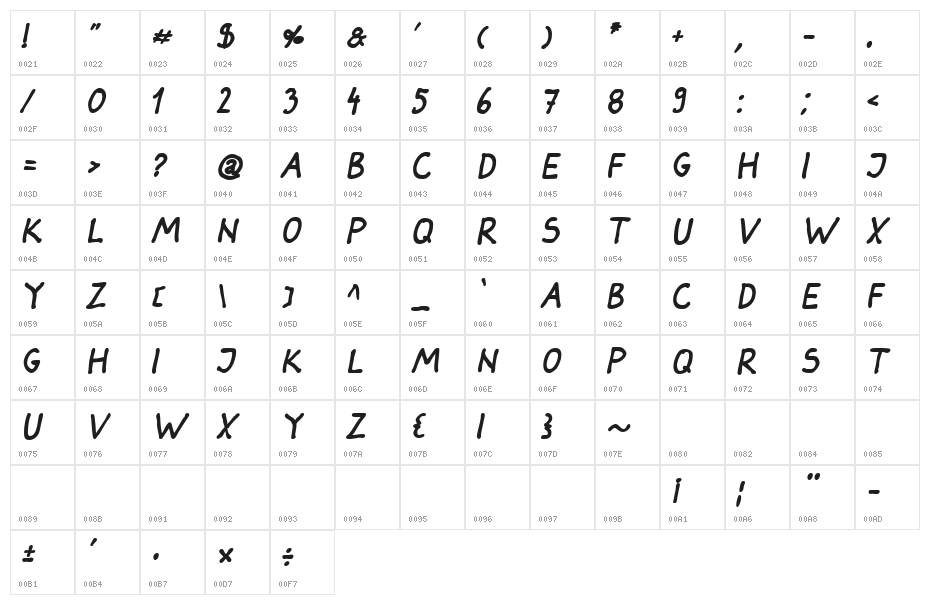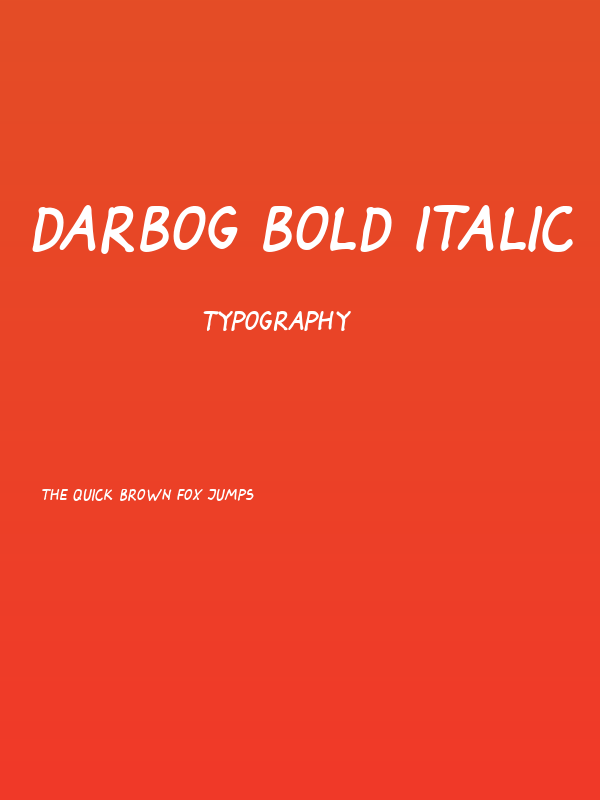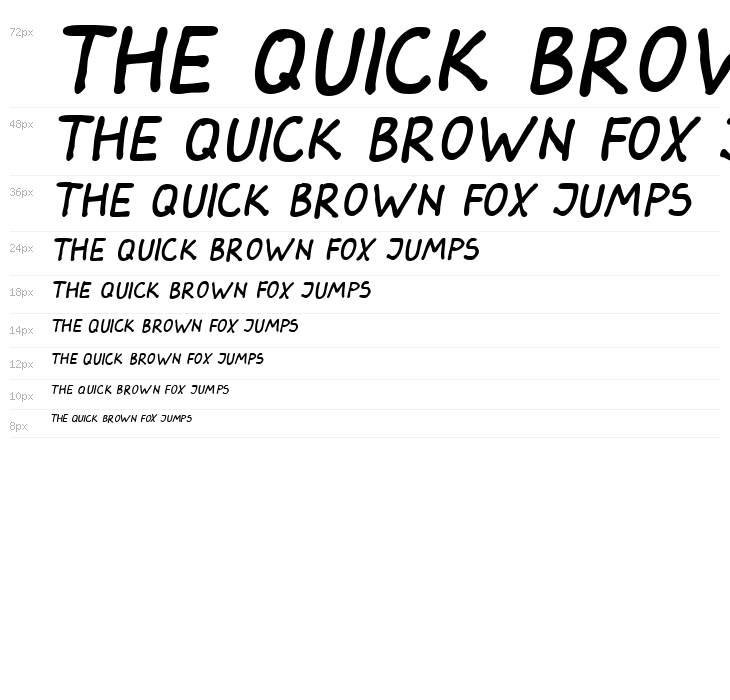
Darbog Bold Italic Font
Darbog Bold Italic Description
This font features a bold and italicized style with a handwritten appearance. The letters are slightly slanted, giving a dynamic and casual feel. The strokes are thick and consistent, providing a strong visual impact. The characters are well-rounded with smooth curves, enhancing readability while maintaining a playful and informal tone. The numbers and special characters follow the same stylistic approach, ensuring uniformity across all elements. This font is suitable for projects that require a personal touch or a creative flair.
| Proposed Projects | Ideal for greeting cards, personal branding, creative posters, and informal invitations. |